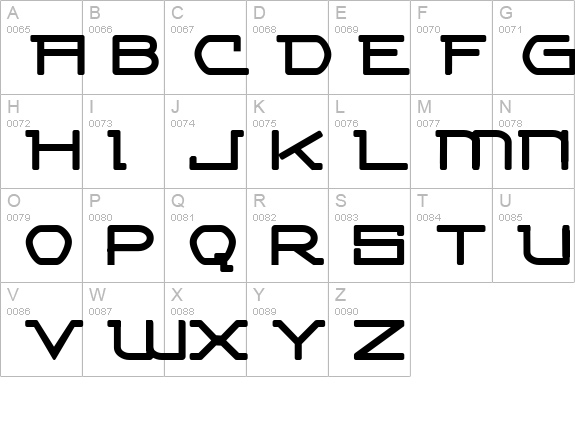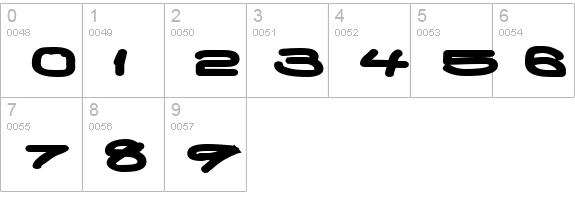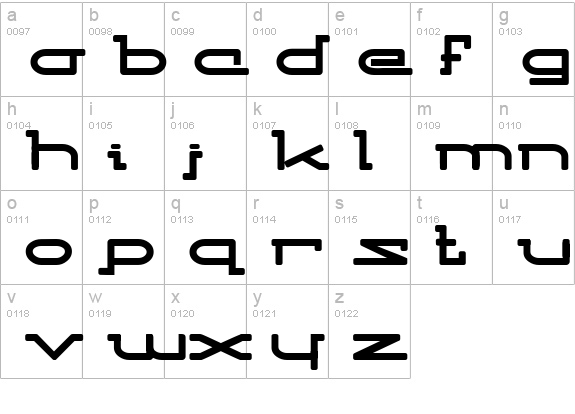
Introducing Competitor font, a sleek and modern typeface that exudes professionalism and sophistication. With its clean lines and elegant curves, Competitor is perfect for a wide range of design projects, from branding to editorial design. This versatile font is sure to make your text stand out and leave a lasting impression on your audience. What's even better is that Competitor font is available for free download at FontsMarket.com. You can easily access this premium font without any cost, making it a valuable addition to your font collection. Don't miss out on the opportunity to elevate your designs with Competitor font and make a statement with every word you write.